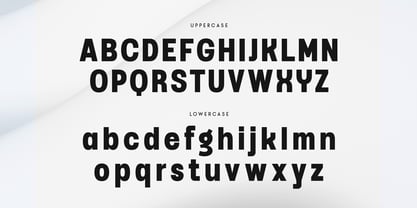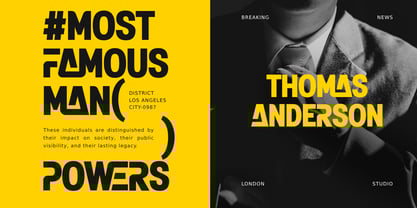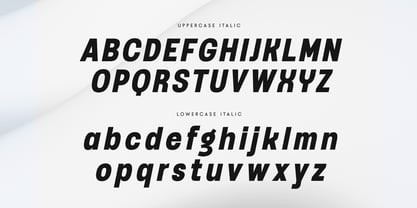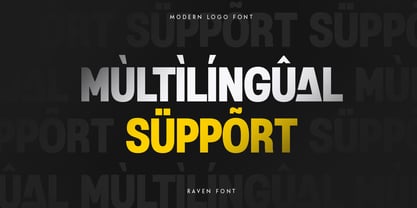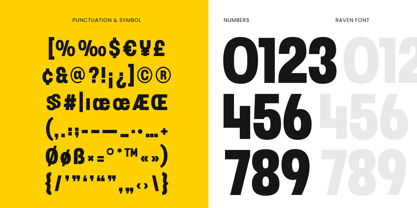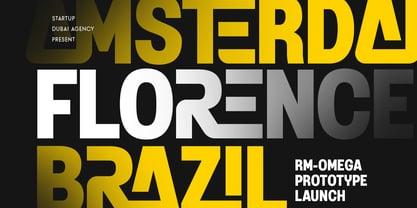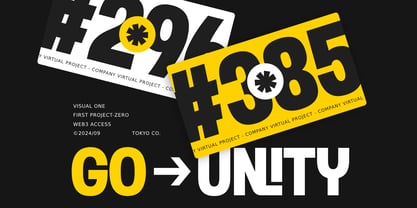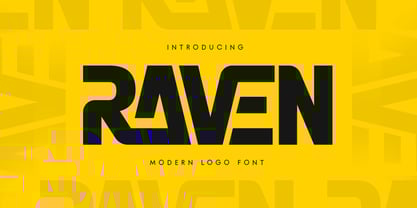
Raven SS
by Sensatype Studio
The Raven SS Font Family was designed by Zamroni Hamzah and published by Sensatype Studio. Raven SS contains 2 styles and family package options. More about this family
Raven - Modern Logo Font
Raven is a modern logo font designed to elevate your branding and design projects with sleek, clean lines and a bold aesthetic. Its contemporary style makes it perfect for logos, headlines, and any project that requires a striking, minimalist touch. The strong geometric shapes of Raven create a professional and refined look, making it ideal for modern businesses and creative ventures.
Inspired by the simplicity of modern typography, Raven balances elegance with functionality, allowing it to shine in both digital and print media. Whether you’re crafting a logo, building a brand identity, or designing marketing materials, Raven’s versatility will bring a fresh and polished edge to your work.
With its sharp, precise letterforms, Raven helps you create impactful designs that are both timeless and on-trend, making it a must-have for anyone looking to make a bold, modern statement.
Raven Modern Logo Font Features:
• Bold and Modern Characters Ready
• Punctuation, Number, and Symbol
• Uppercase and Lowercase
• Multilingual Support
• Opentype Features
Designers: Zamroni Hamzah
Foundry: Sensatype Studio